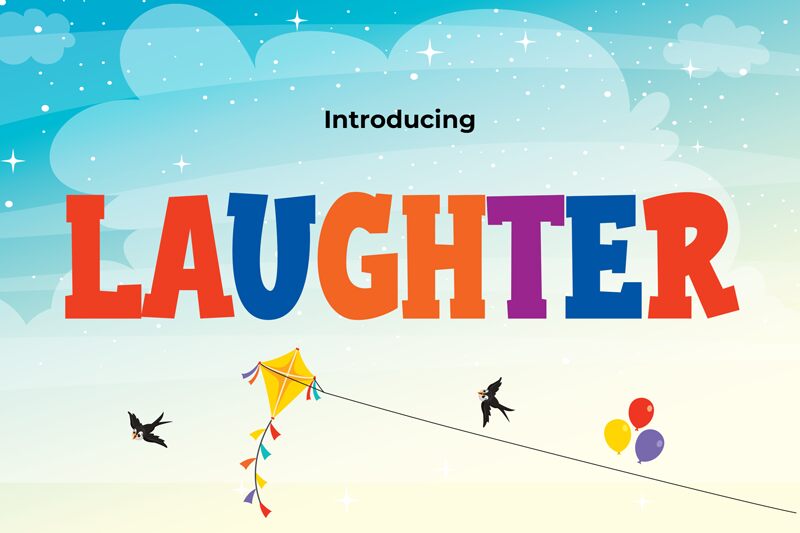
LAUGHTER
Laughter font by Pinisiart is a free cartoon display font. Its chunky, flared forms and slightly off‑kilter rhythm feel like bold brushstrokes—friendly, loud, and a little mischievous. Letters stack tight and punchy, creating a bouncy headline texture that grabs attention without getting messy.
Using Laughter, you’ll get instant fun for kids’ birthday invites, toy packaging, comic title cards, party posters, YouTube thumbnails, snack branding, and school flyers. This free font shines at oversized scales; give it generous leading and a touch of loose tracking to let the curves breathe. For body copy, pair it with a clean rounded sans to keep the spotlight on the playful display.